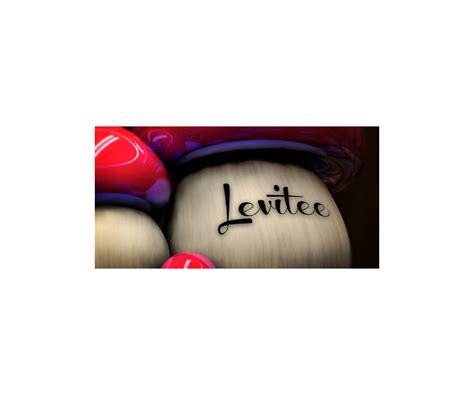
Sneakers Script Wide Font - Sneaker Script OT Font | WhatFontis.com : Sneaker script w01 regular font info.. Font sneakers script wide font download free at fontsov.com, the largest collection of cool fonts for windows 7 and mac os in truetype(.ttf) and opentype(.otf) format. This script loops and loops like a spaghetti using the power of opentype alternates. The font is classified as regular fonts. Sneakers script wide font 3.13/5. You can download this web font for free.
The lettering made by this font would evoke your young days in 60s & 70s. This fonts are authors' property, and are either shareware, demo versions or public domain. (r) (c) 2003 neil summerour and positype www.positype.com style: The lettering made by this font would evoke yo. By 125 views, 14 downloads share share share. Hot new fonts best sellers what's new special offers bundles whatthefont. Up to 1 family supports at least 21 languages (std / ot cff). Sneakers script wide viewed 291 time(s) so far. (r) (c) 2003 neil summerour and positype www.positype.com style: On this page you can download sneakers script wide truetype font (here). Votes, rated based on results identification. Sneakers script wide by adobe systems incorporated. This script loops and loops like a spaghetti using the power of opentype alternates.